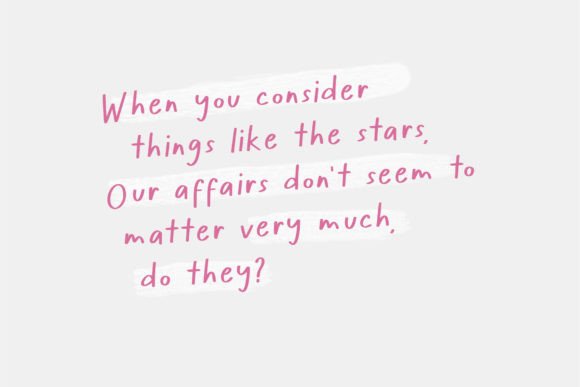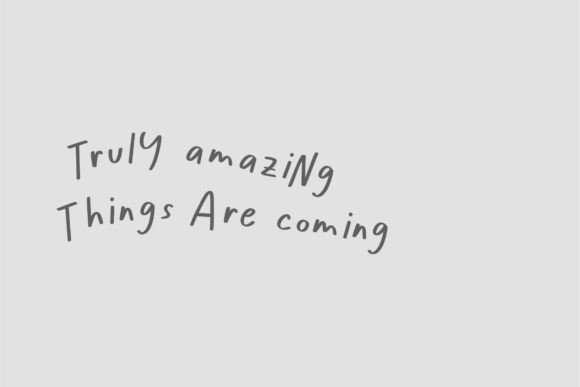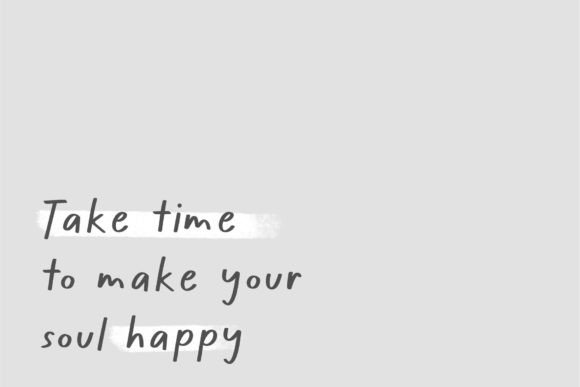
Introduction to Lillybonie Font
Do you remember the moment when you scribbled down a quote in a beautiful handwriting font on a polaroid photo, and it instantly became the perfect decoration for your bedroom? That’s the magic of handwritten fonts like Lillybonie Font. This stunning Handwritten marker font is a treasure trove for designers and creatives who are looking for a high-quality design resource to elevate their projects.
With Lillybonie Font, you can add a touch of personality to your branding projects, product packaging, and social media graphics. Its unique and elegant style makes it perfect for expressing words above a transparent background, making it a valuable addition to any creative project. Whether you’re working on a wedding invitation, a magazine spread, or a social media campaign, Lillybonie Font is sure to make your design stand out.
Key Features of Lillybonie Font
- High-quality design resource ideal for creative projects, including logos, graphics, and typography.
- Includes a transparent background, allowing for seamless integration into various design backgrounds and compositions.
- Font size: 1,000 characters, making it suitable for a variety of design applications, from small graphics to large-scale typography.
- Resolution: 72 dpi, suitable for digital design applications, including web design, social media graphics, and digital publishing.
- Unique, handcrafted design with intricate details, making it a standout choice for designers seeking a distinctive look.
Honest Review: Lillybonie Font
I recently stumbled upon the Lillybonie Font, and I must say, it’s a delightful addition to any design resource library. As a designer, I’m always on the lookout for high-quality fonts that can elevate my creative projects. The Lillybonie Font is a perfect example of a well-designed font that’s perfect for a variety of uses.
What works well: ✨ The font’s elegant script style makes it perfect for wedding invitations, event branding, and any project that requires a touch of sophistication. The transparent background option allows for seamless integration with any design element, making it a versatile choice for designers.
What could be improved: ⚠️ While the font is overall well-designed, I did notice that it’s not ideal for body text. The script style can be a bit challenging to read in large quantities, making it more suitable for headings and titles.
Overall, I’m impressed with the Lillybonie Font, and I would definitely recommend it to designers looking for a high-quality font for their creative projects. It’s a great free download that’s sure to add a touch of elegance to any design.
- Perfect for headings and titles
- Great for wedding invitations and event branding
Lillybonie Font is a high-quality design resource perfect for your creative project. It’s available for free download and can be easily integrated into various design tools.
Tips for Getting the Most Out of Lillybonie Font
For optimal results, use Lillybonie Font with a transparent background to create a seamless design. Experiment with different font sizes and styles to achieve the desired effect.
Lillybonie Font is ideal for a variety of creative projects, including:
- Typography-based art
- Branding and logos
- Infographics and presentations
The Alice Script Font is a beautiful, elegant script font perfect for creative projects, such as wedding invitations, greeting cards, and other design elements that require a touch of sophistication. It’s available for free download and features a transparent background, making it ideal for overlaying on images or backgrounds. When to use: For formal events, high-end branding, or any design project that requires a classic, timeless feel. Compared to Lillybonie Font, Alice Script Font is more elegant and refined, with a more subtle, cursive style.
The Great Vibes Font is a modern, cursive script font that’s perfect for creative projects, such as posters, flyers, and social media graphics. It’s available for free download and features a high-quality design that’s suitable for both digital and print use. When to use: For casual events, branding, or any design project that requires a fun, laid-back feel. Compared to Lillybonie Font, Great Vibes Font is more casual and relaxed, with a more playful, cursive style.